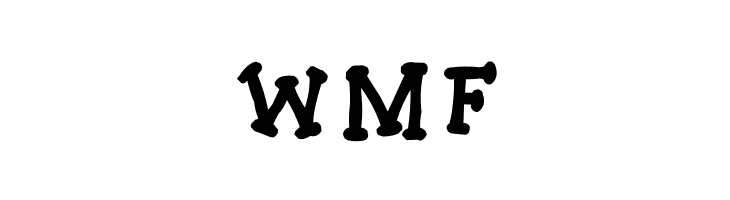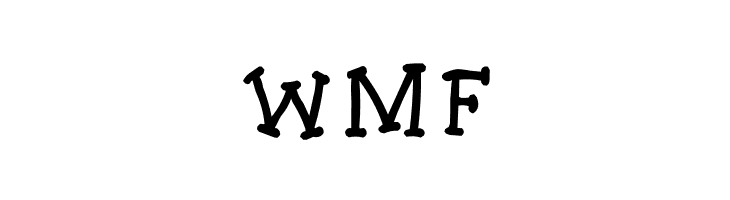
• BillyBear Halloween
( Fonts by Loraine Wauer Ferus www.billybear4kids.com )
A whimsical font with characters encased in cartoon bear figures, perfect for playful designs.
• BillyBears FriendlyGhost
( Fonts by Loraine Wauer Ferus www.billybear4kids.com )
A playful font with characters inside friendly ghost shapes, perfect for whimsical designs.
• Mud Pie
( Fonts by Loraine Wauer Ferus www.billybear4kids.com )
A playful, hand-drawn font with bold, rounded characters and a whimsical style.
• Zyia Learns Letters
( Fonts by Loraine Wauer Ferus www.billybear4kids.com )
A dotted, educational font ideal for handwriting practice.
• Jelly Roll
( Fonts by Loraine Wauer Ferus www.billybear4kids.com )
A playful, bold font with rounded, bouncy characters and whimsical elements.
• Kids4Fun
( Fonts by Loraine Wauer Ferus www.billybear4kids.com )
A playful, hand-drawn font with quirky, uneven lines and a whimsical style.
• Keep Out
( Fonts by Loraine Wauer Ferus www.billybear4kids.com )
A playful, bold font with exaggerated curves and angles, perfect for dynamic designs.
• Chatter Box
( Fonts by Loraine Wauer Ferus www.billybear4kids.com )
A playful, handwritten font with a casual and whimsical style.
• Nuvenon
( Fonts by Kreative Korporation - www.kreativekorp.com )
A collection of ornate, decorative elements with intricate swirls and flourishes.
• DesignersSkulls
( Fonts by Ekkehard Beck )
A bold, decorative skull-themed dingbat font with diverse cartoonish skull illustrations.
• Beacon
A bold, gothic-style font with sharp, angular lines and intricate details.
• Coconut Express 01 Trial
( Josef Faustbeck - www.nize.at )
A modern, geometric sans-serif font with balanced strokes and clear readability.
• adolars fart
( Diana's Fonts - formerly at www.pferdedeutsche.de/fonts.html )
A bold, hand-drawn font with irregular, artistic characters.
• corrupt cop
( Diana's Fonts - formerly at www.pferdedeutsche.de/fonts.html )
A playful, hand-drawn font with a casual, whimsical style.